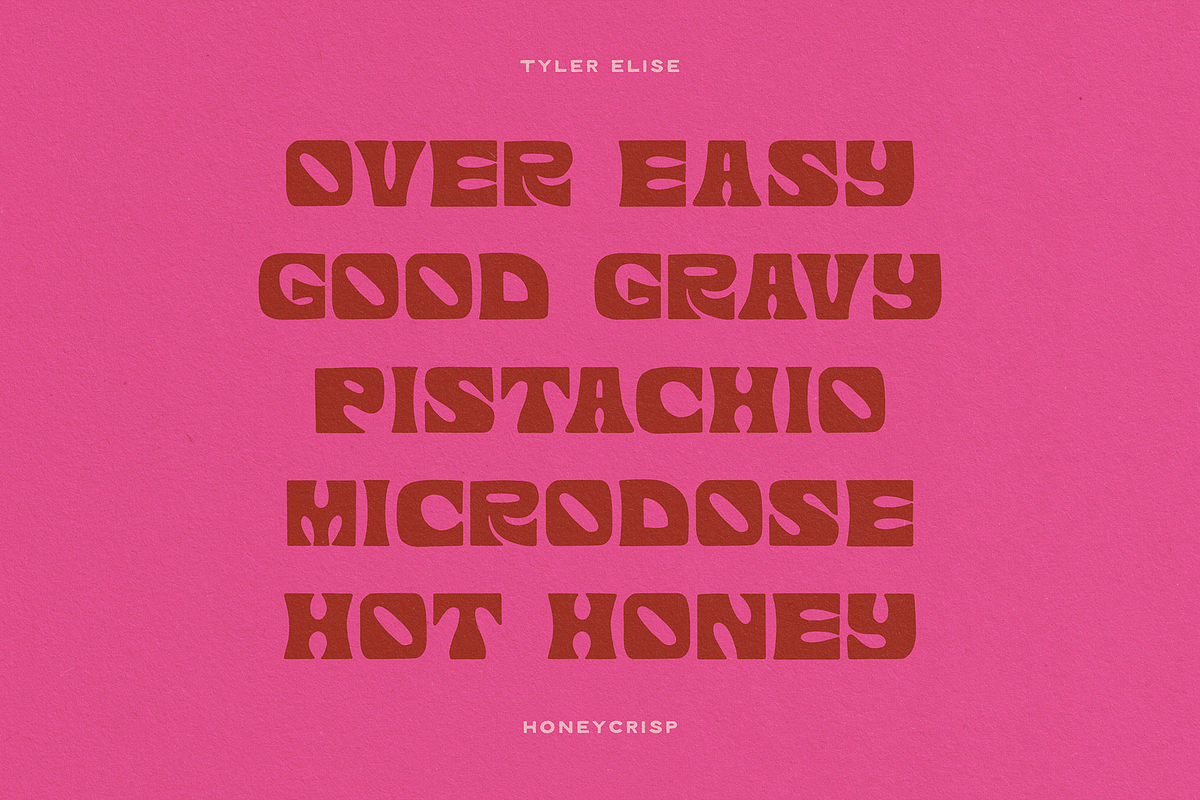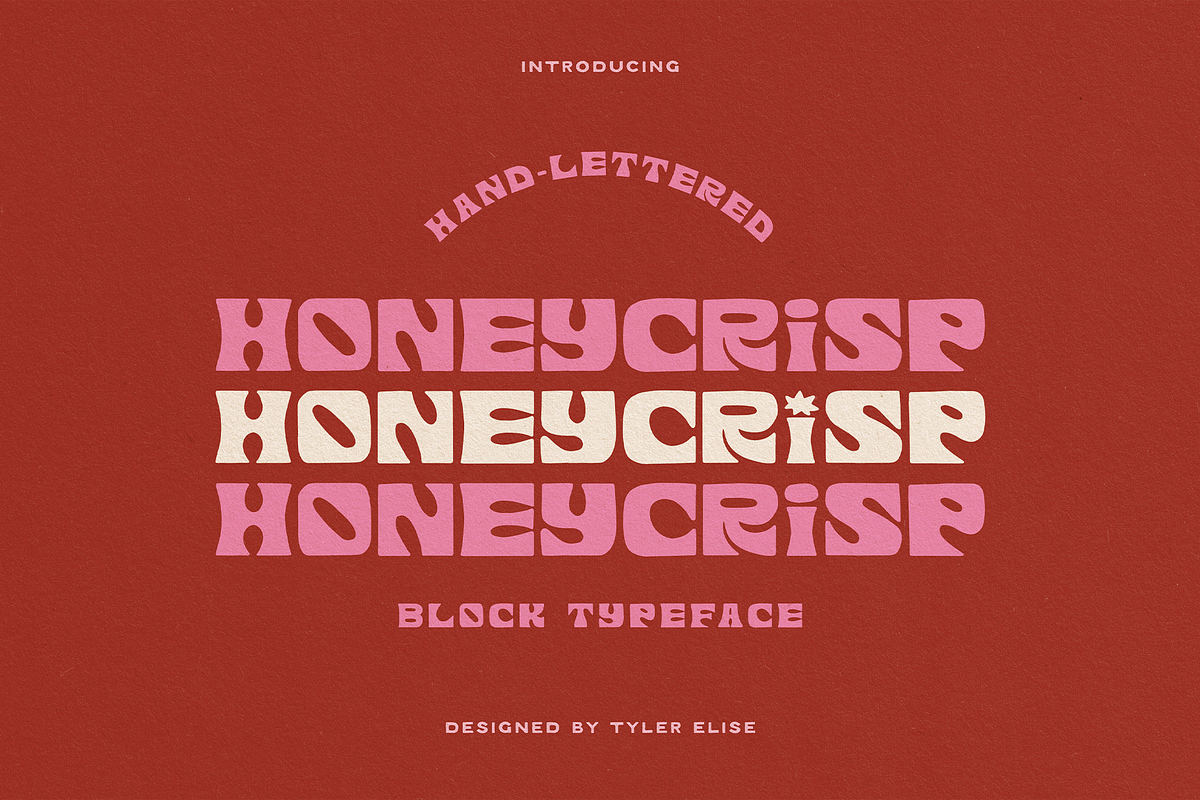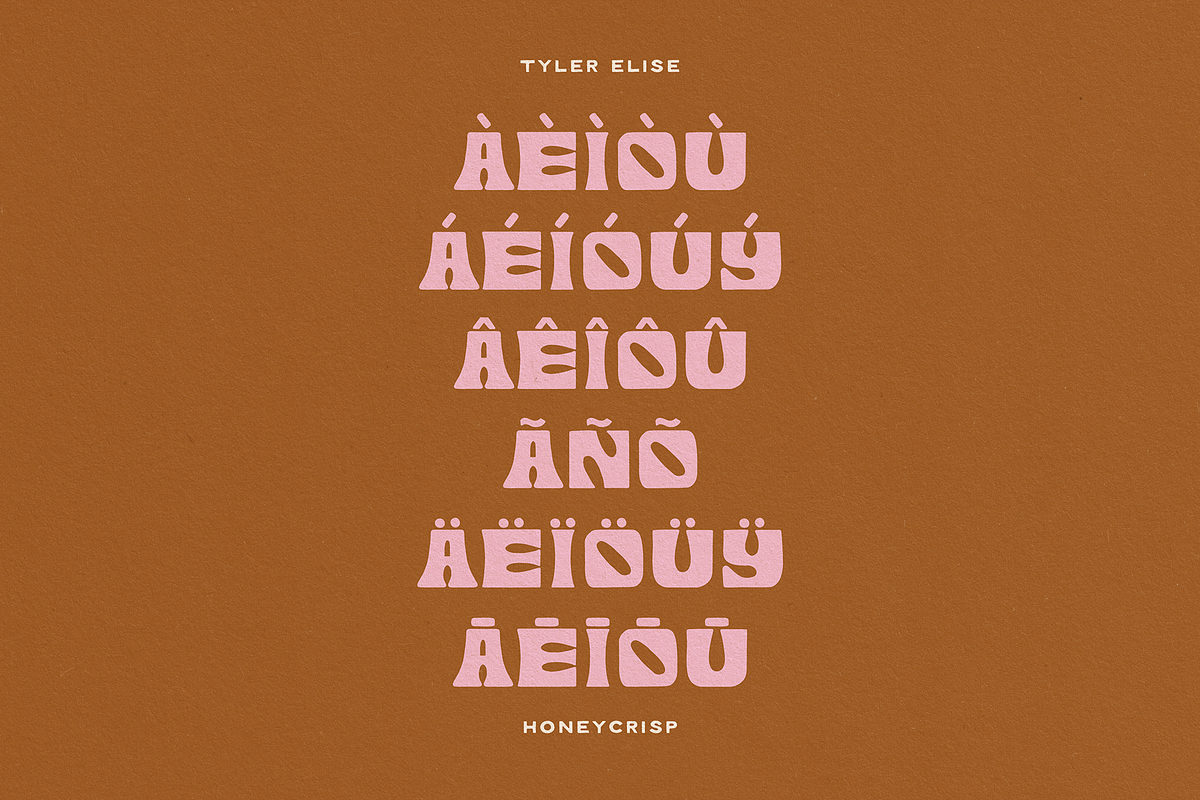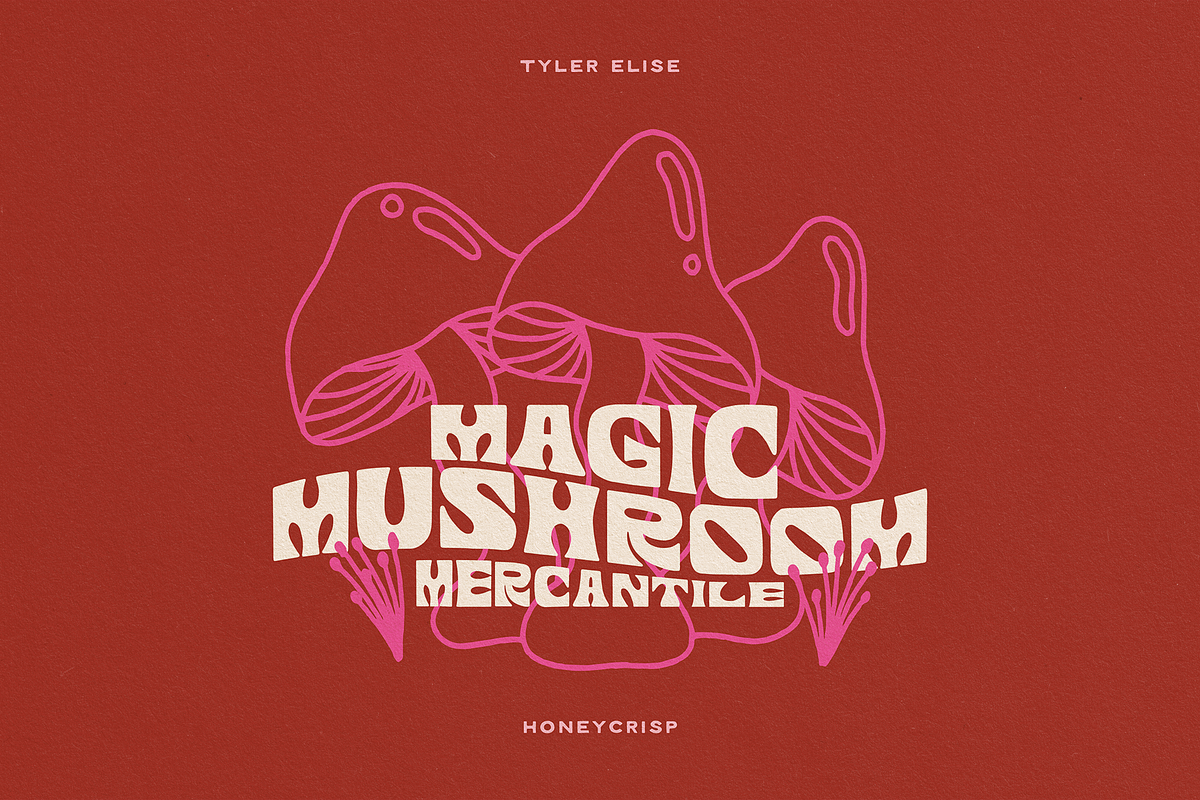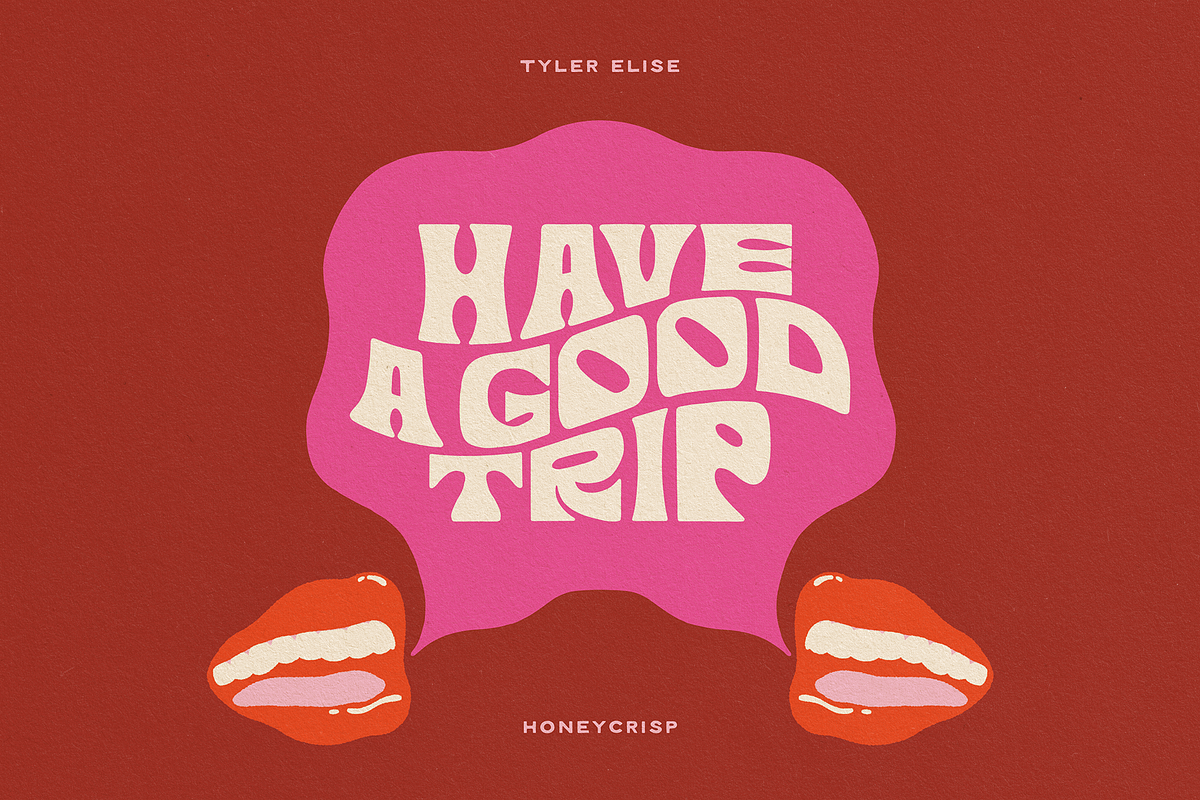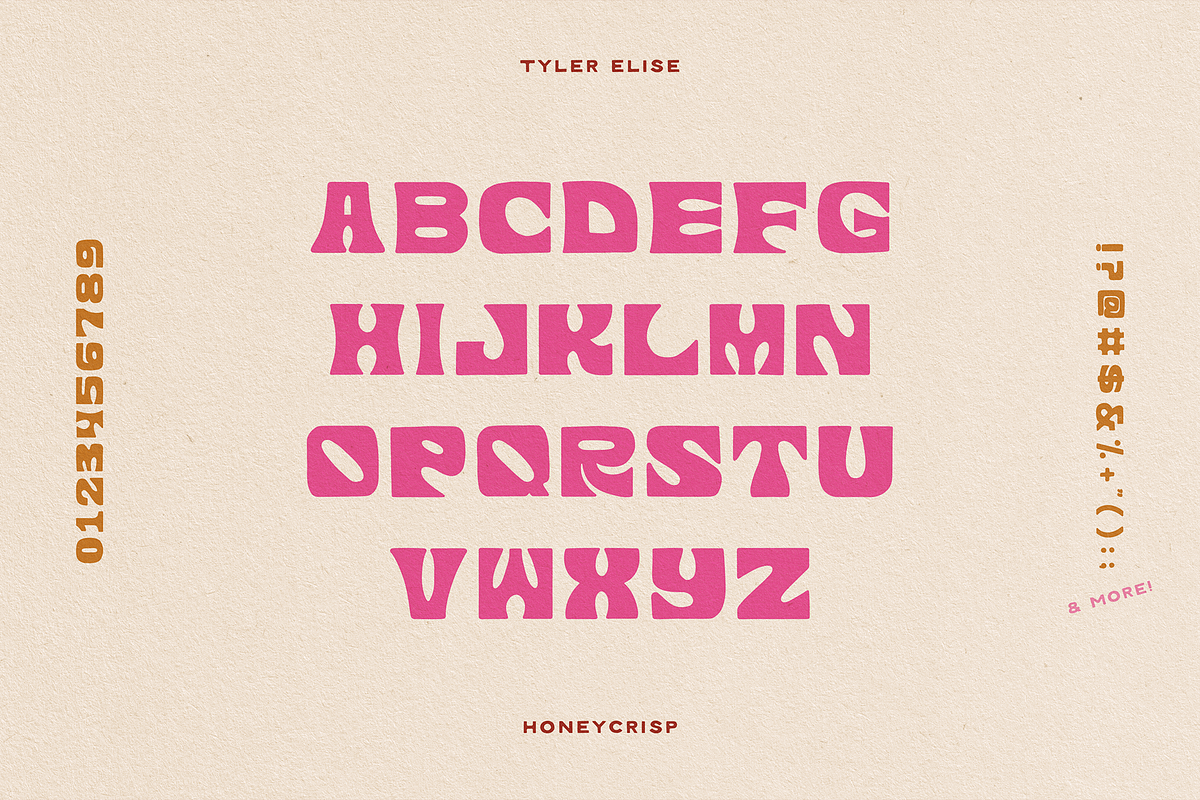
HONEYCRISP by Tyler Elise
HONEYCRISP is a hand-lettered block typeface inspired by the carefree spirit of the '70s. Perfect for posters, album covers, or anything that craves a touch of vintage cool.